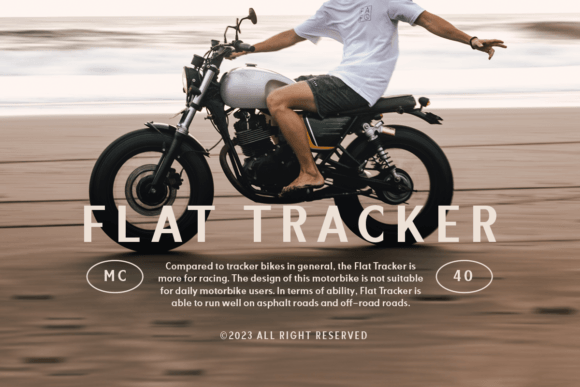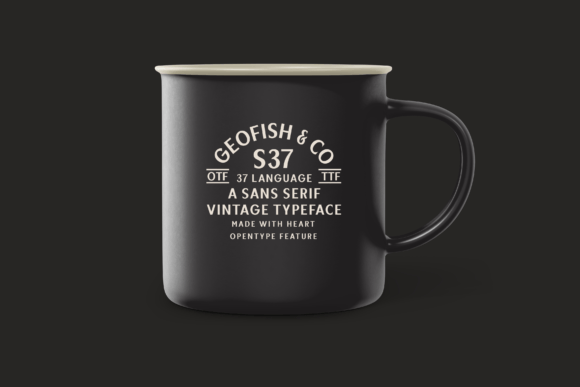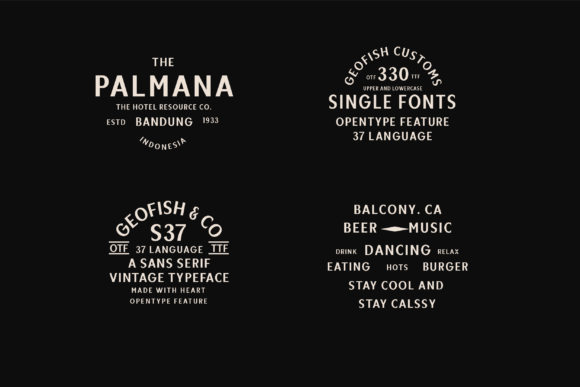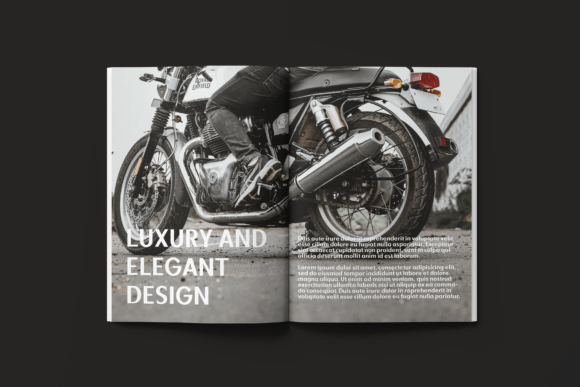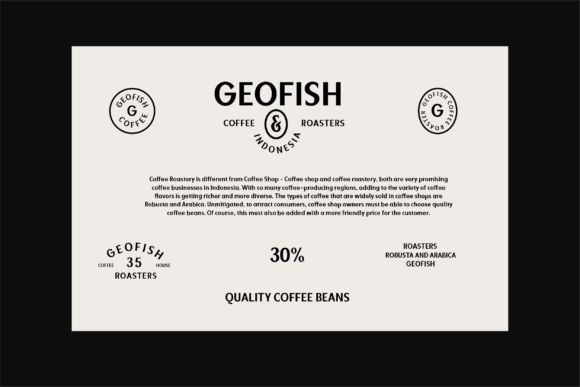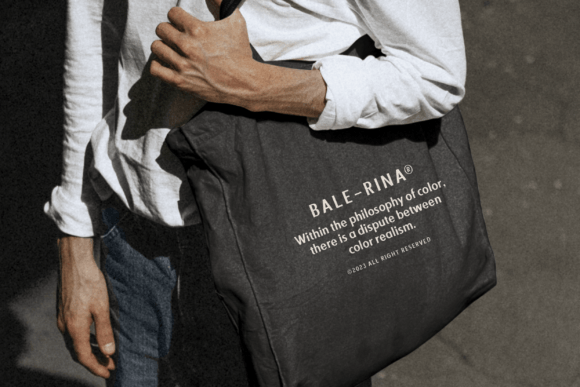
Introducing Geofish Font: The Perfect Blend of Vintage Style and Modern Flair
Are you a designer or crafter looking to add a touch of vintage elegance to your work? Look no further than the Geofish font. With its classic look and modern feel, Geofish is the perfect font for anyone looking to make a statement with their designs. In this article, we’ll take a closer look at the Geofish font, its features, and how you can use it to create unique and stylish designs for t-shirts, logos, badges, and more.
What is Geofish Font?
Geofish font is a stylish and versatile typeface that combines the best of both worlds – vintage charm and modern sophistication. Its classic look is reminiscent of traditional fonts from the past, while its modern feel makes it perfect for contemporary designs. Whether you’re working on a branding project, creating custom apparel, or designing promotional materials, Geofish font is the perfect choice.
Key Features of Geofish Font
So, what makes Geofish font so special? Here are some of its key features:
- Classic look with a modern twist: Geofish font has a timeless elegance that is perfect for designs that require a touch of sophistication.
- Versatile: Geofish font can be used for a wide range of design projects, from logos and branding to t-shirts and promotional materials.
- Easy to read: Despite its ornate look, Geofish font is easy to read, making it perfect for designs that require a clear and concise message.
- High-quality: Geofish font is a high-quality typeface that is designed to look great in any size or resolution.
How to Use Geofish Font in Your Designs
Geofish font is perfect for a wide range of design projects, including:
- T-shirts and apparel: Add a touch of vintage style to your custom apparel with Geofish font.
- Logos and branding: Create a unique and memorable brand identity with Geofish font.
- Badges and labels: Use Geofish font to create custom badges and labels that stand out.
- Promotional materials: Add a touch of elegance to your promotional materials, such as brochures, flyers, and posters.
Why Choose Geofish Font?
So, why should you choose Geofish font for your designs? Here are just a few reasons:
- Unique and stylish: Geofish font is a unique and stylish typeface that will set your designs apart from the rest.
- High-quality: Geofish font is a high-quality typeface that is designed to look great in any size or resolution.
- Perfect for vintage and modern designs: Geofish font is perfect for designs that require a touch of vintage style with a modern twist.
In conclusion, Geofish font is the perfect choice for designers and crafters looking to add a touch of vintage elegance to their work. With its classic look and modern feel, Geofish font is perfect for creating unique and stylish designs for t-shirts, logos, badges, and more. So, if you’re looking to make a statement with your work, then Geofish font is the perfect choice. Download Geofish font now, and start creating beautiful designs today!